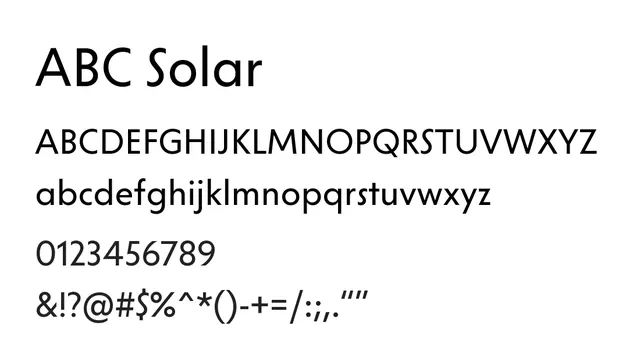
ABC Solar
ABC Solar, modern, warm
A balanced humanist sans-serif with warm proportions and strong legibility; optimized for body text and interface applications.
Ideal for body text across digital products, editorial platforms, and SaaS applications. The humanist characteristics and warm feel provide character while maintaining excellent readability at small and large sizes.
Works seamlessly with ABC Solar Display for hierarchical contrast, or with ABC Social Mono for technical typographic systems.